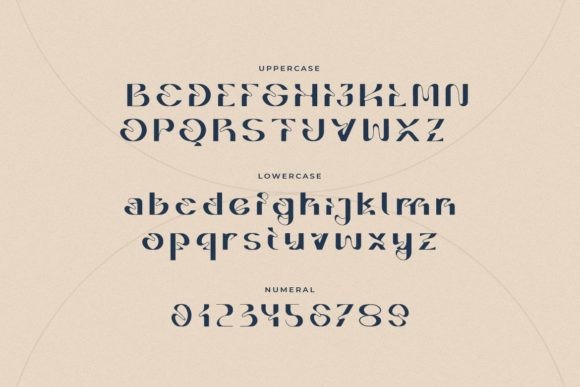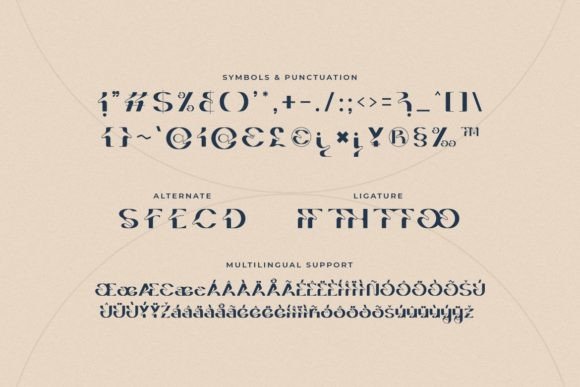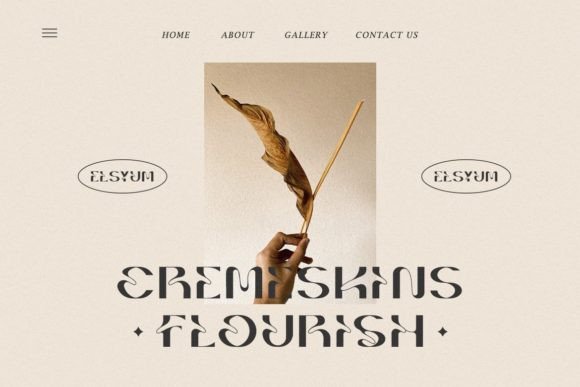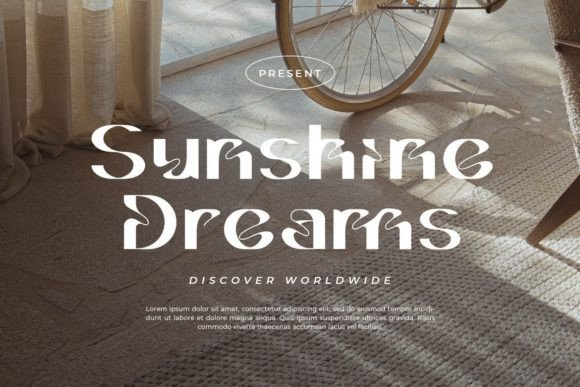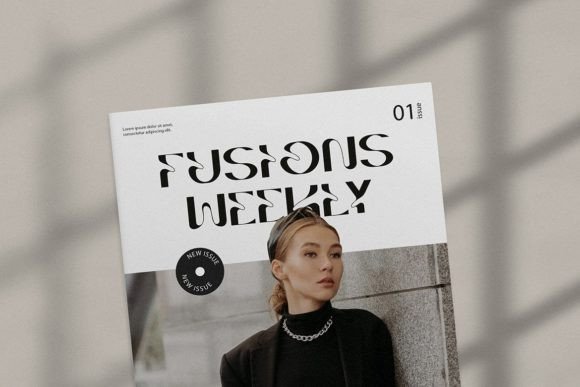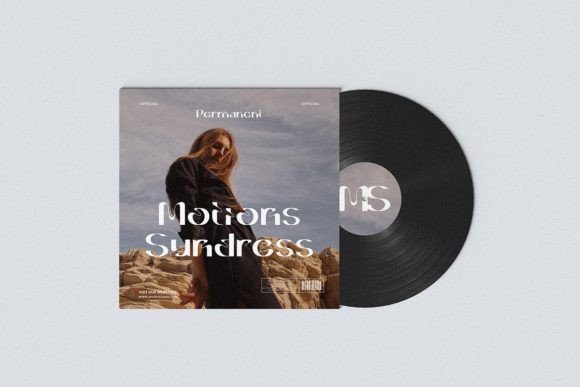
Introduction to Maldiferse Font
Maldiferse is a expressive serif font.
This serif font will be the ideal choice for any cool project or great design you wish to develop This font is PUA encoded which means you can access all of the amazing glyphs and ligatures with ease.
Key Features of Maldiferse Font